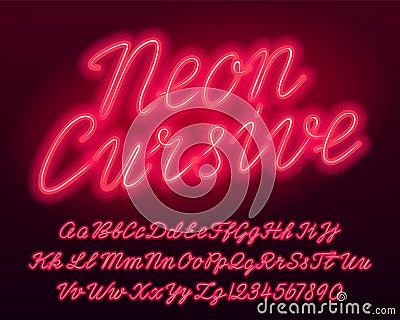
Neon Cursive Alphabet Font. Red Color Lowercase And Uppercase Bright Letters And Numbers. Vector Illustration
Neon cursive alphabet font. Red color lowercase and uppercase bright letters and numbers. #137102314
Neon cursive alphabet font. Red color lowercase and uppercase bright letters and numbers. Stock vector typescript for your typography design.